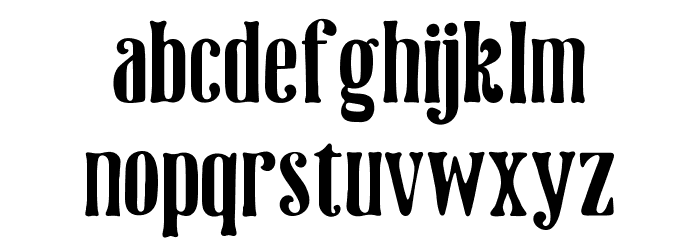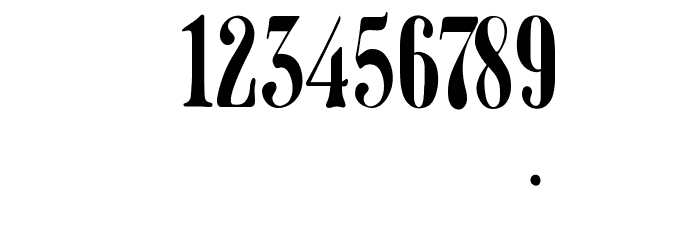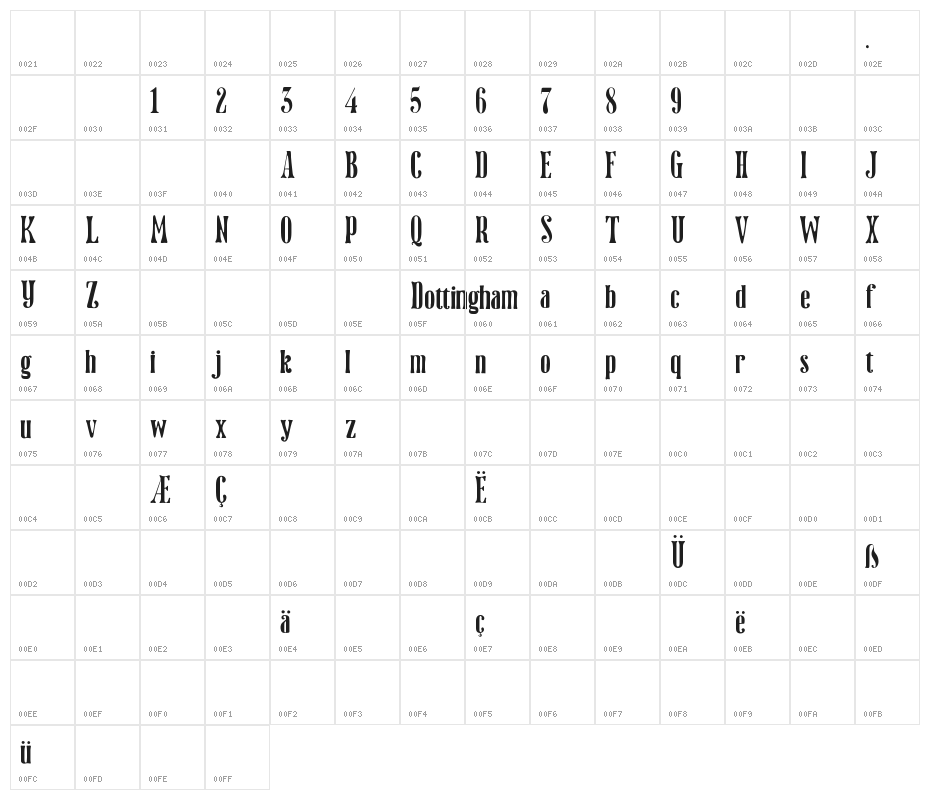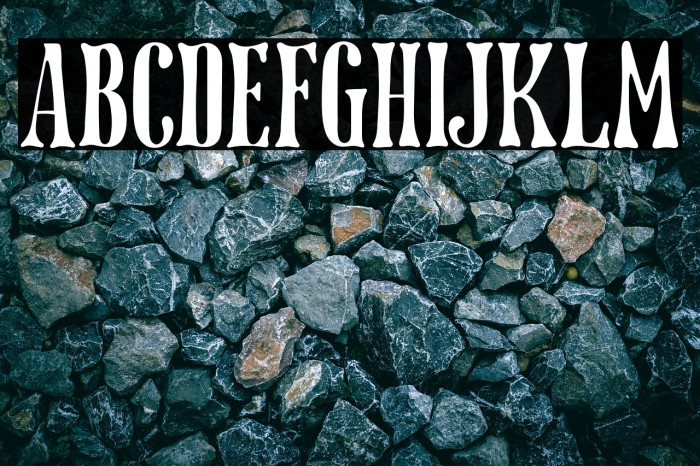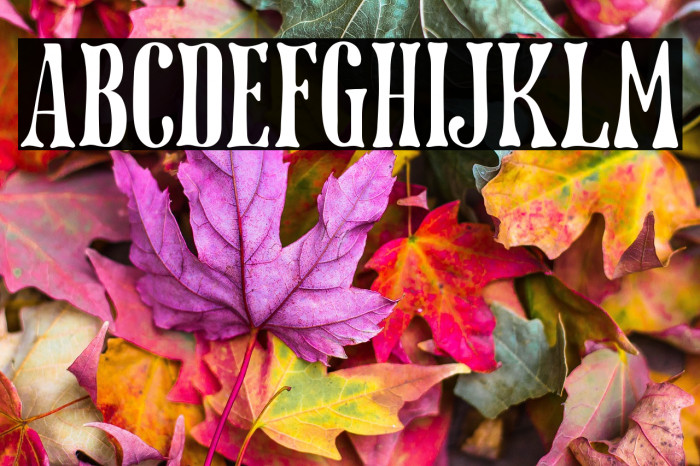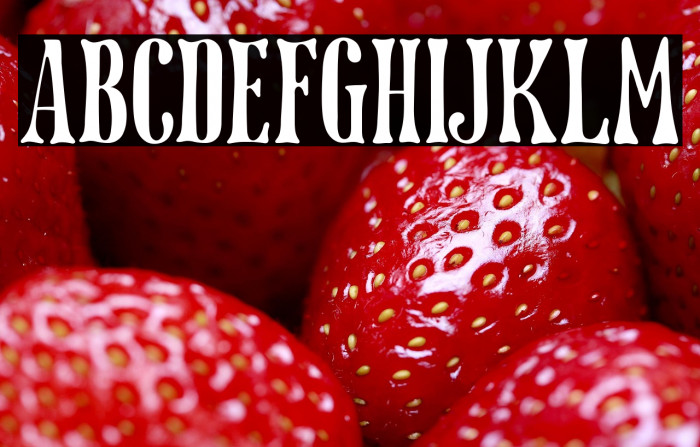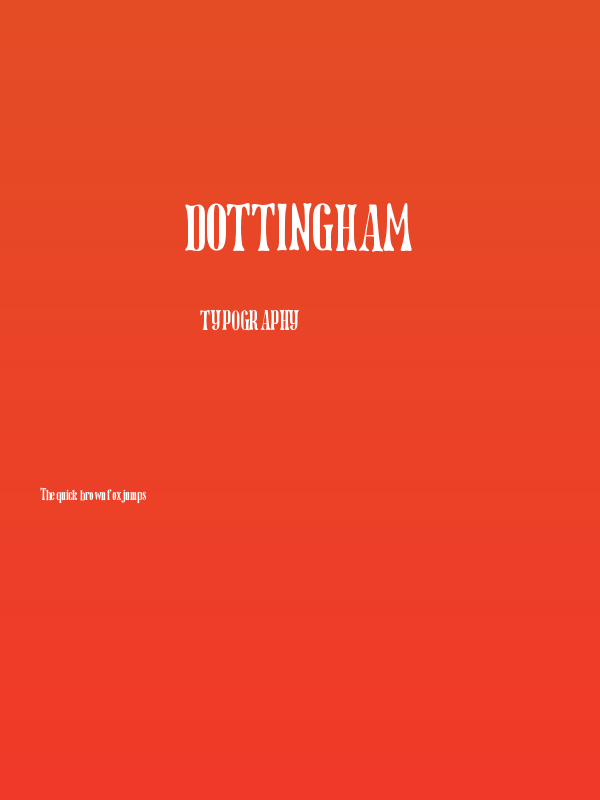
Dottingham Font
This font features a unique and playful design with a whimsical flair. The characters have a distinct, bold appearance with exaggerated curves and varying stroke widths, creating a lively and dynamic look. The uppercase letters are particularly striking, with some incorporating subtle decorative elements that add to the font's charm. The lowercase letters maintain the playful style, ensuring consistency throughout the typeface. Numbers are equally bold and maintain the font's characteristic style, making them stand out. This font is perfect for projects that require a touch of fun and creativity.
A whimsical and bold font with playful curves and decorative elements.
- Font: Dottingham
- Proposed Projects: Ideal for children's books, playful branding, creative posters, and whimsical invitations.
- Overall Style: Playful, Whimsical, Decorative